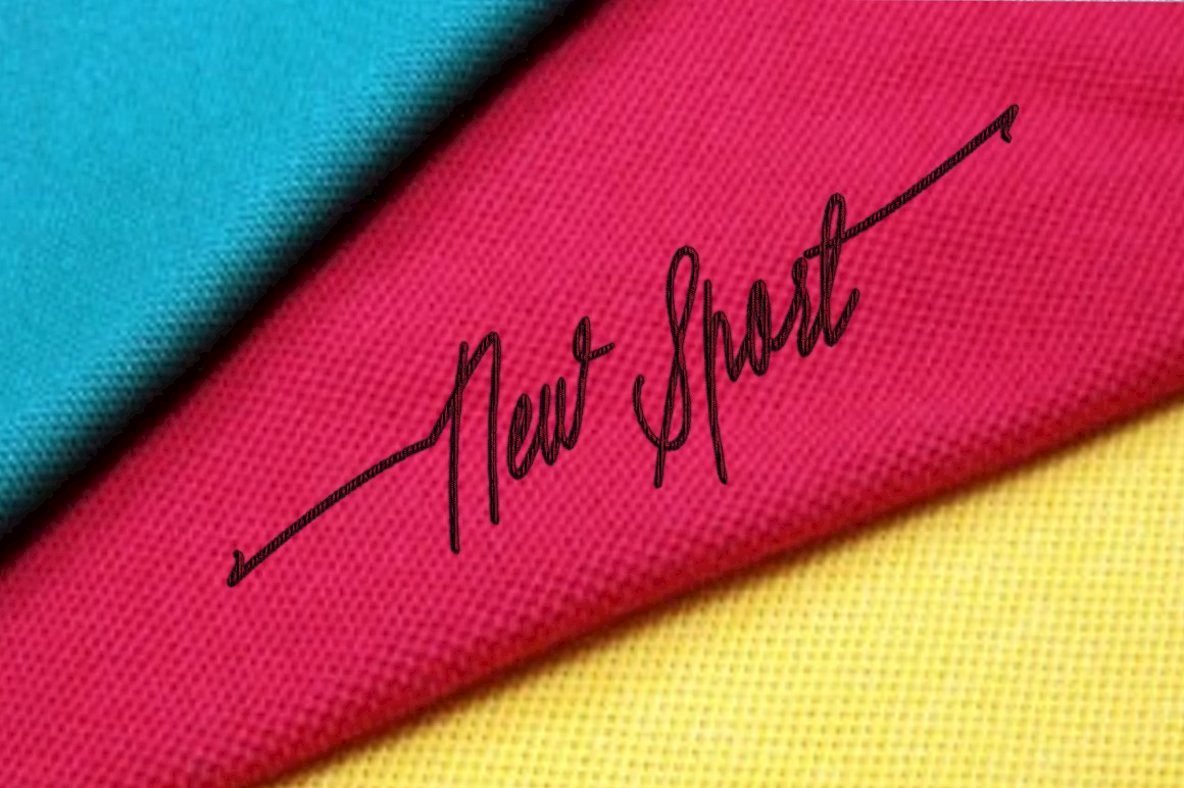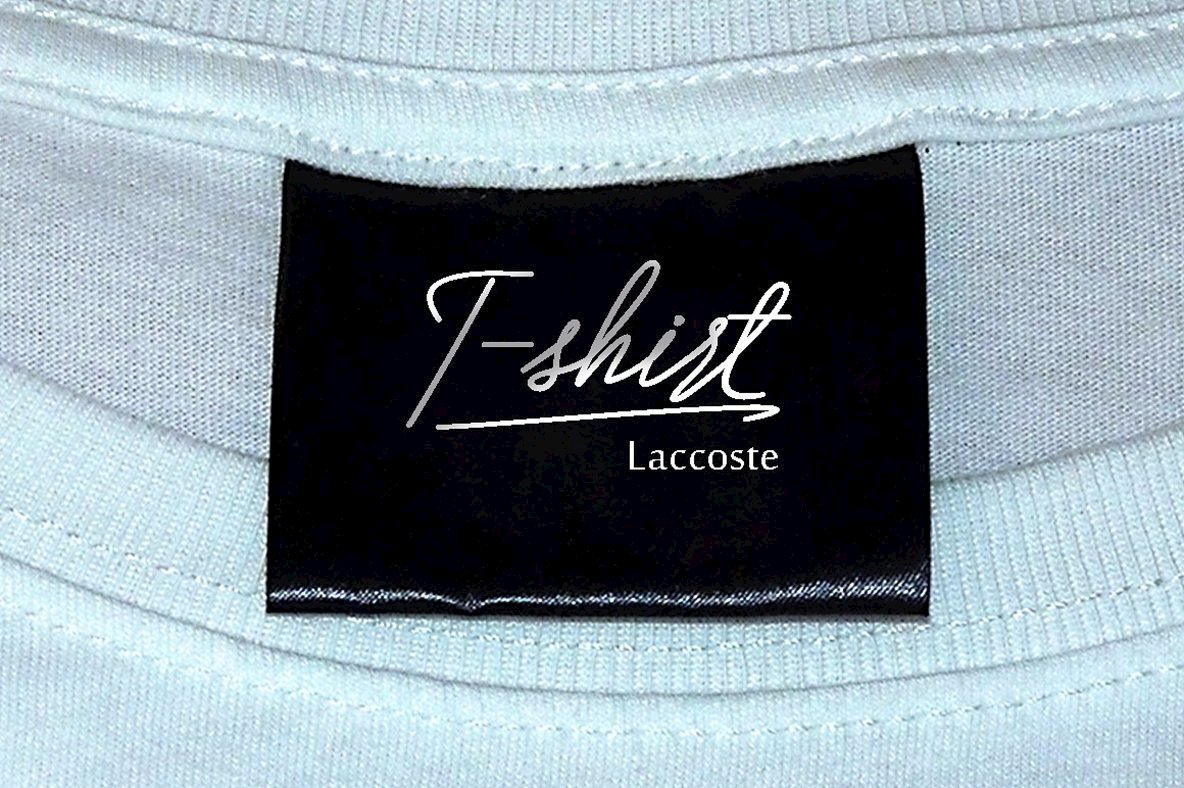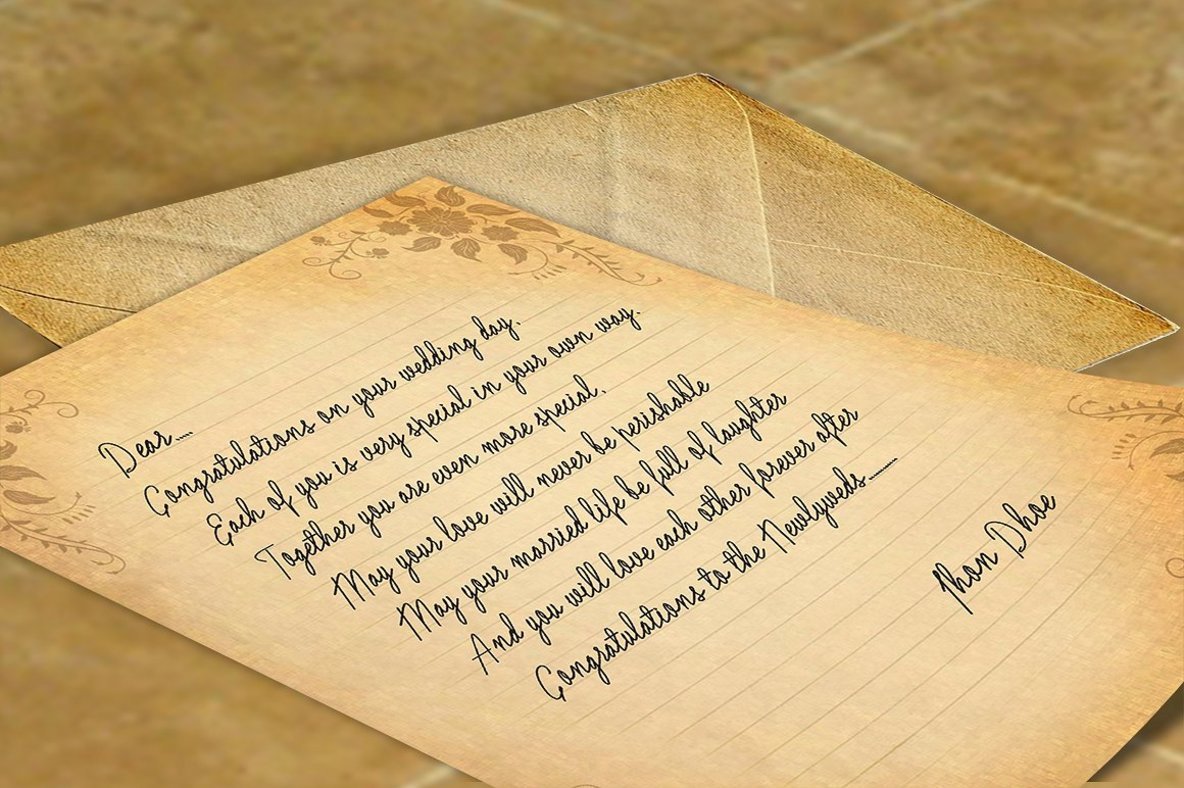
Olivera Font
Olivera
Olivera by Groen Studio embodies the essence of elegant handwriting in a digital format. Perfect for creating distinctive labels or adding a personalized touch to event materials, this script font resonates with both tradition and style. Graphic designers will appreciate its ability to transform ordinary projects into unique masterpieces. Accessing Olivera's complete range of features is simple through OpenType-compatible software such as Adobe Illustrator and Adobe InDesign. Enhance your design repertoire with this versatile script font.Olivera: The Quintessential Script Font for Custom Designs